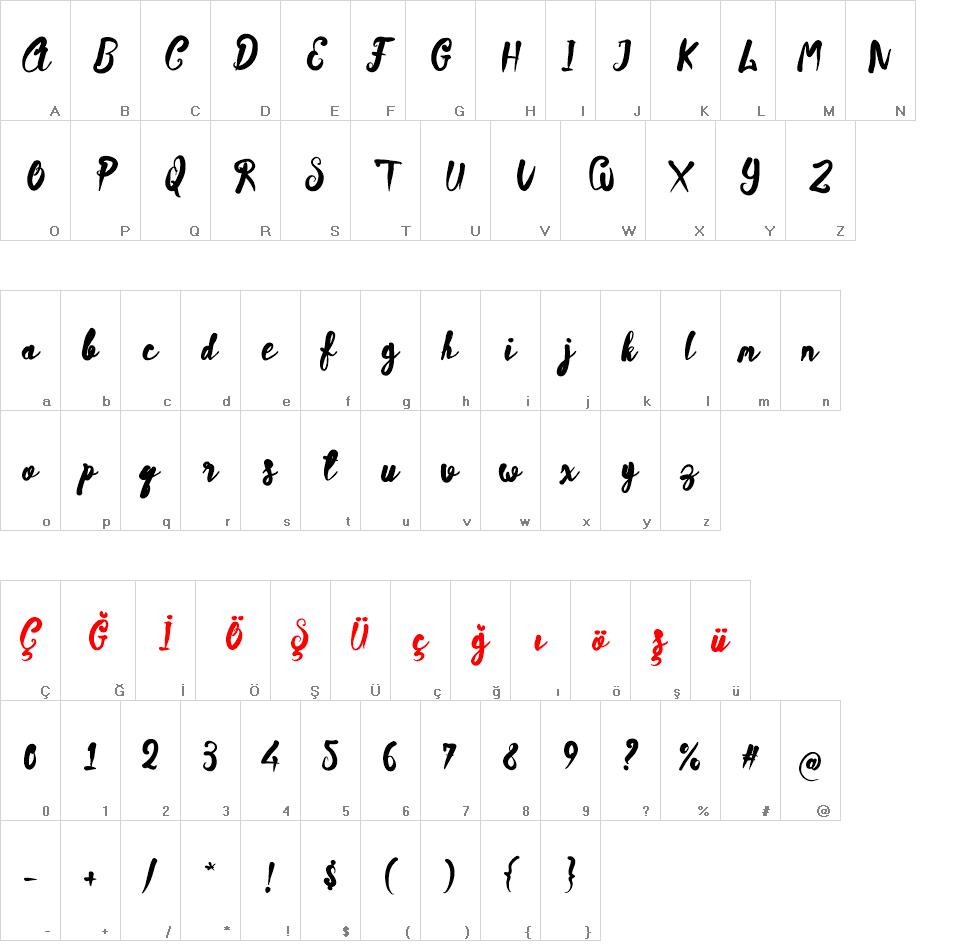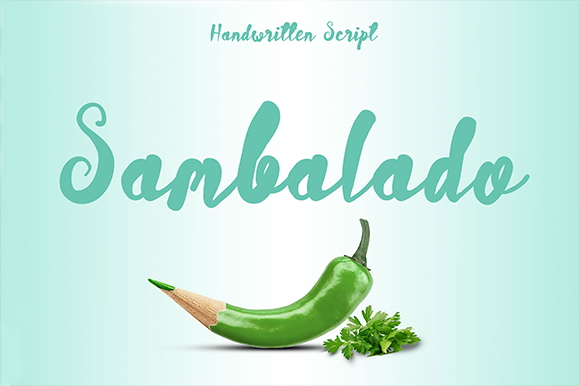
Sambalado font
Introducing my new cute brush script font! It has bold weight with textured shape, will nice for your wedding invitation, product package, logo, title, subtitle, flyer, quotes, etc.
- 310 glyphs
- Support to complete Latin and Eastern Europe characters